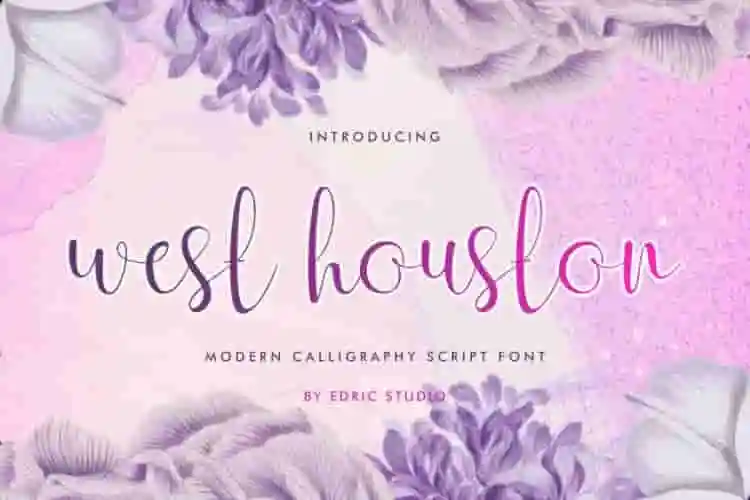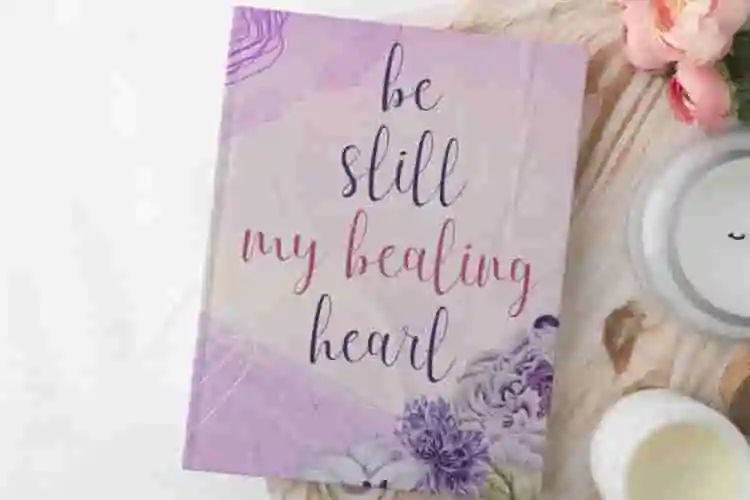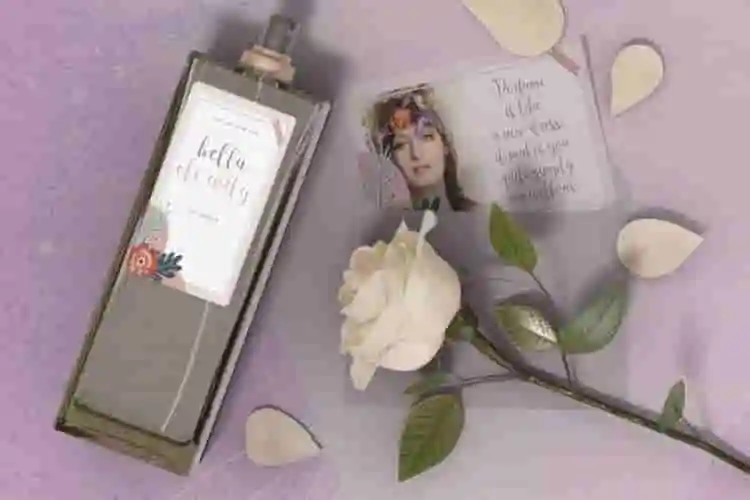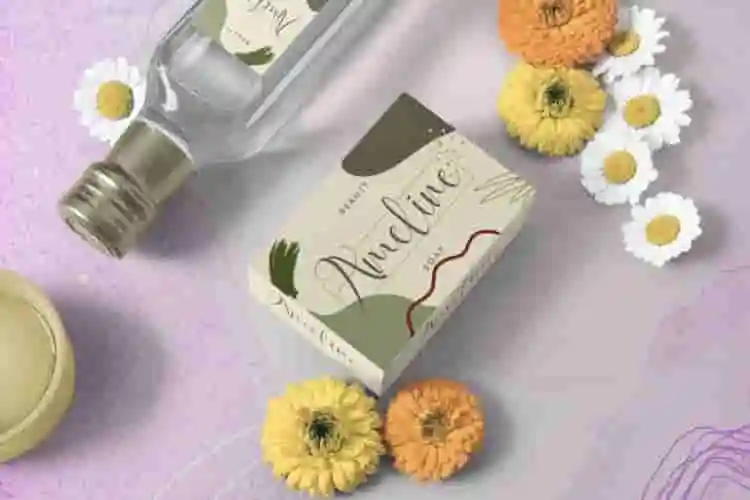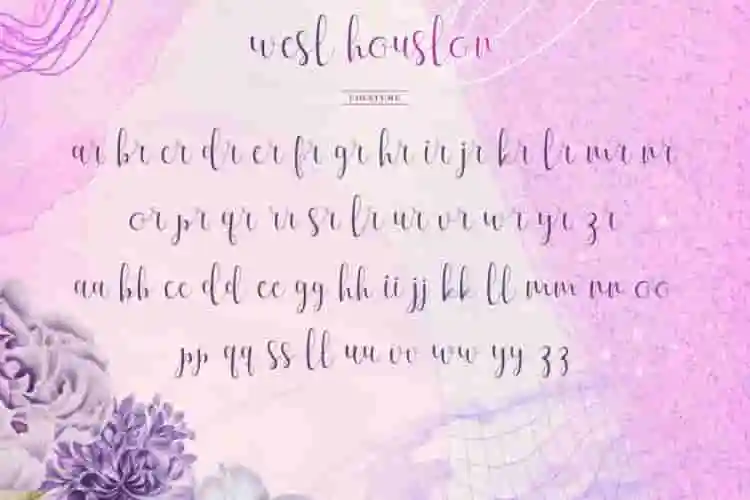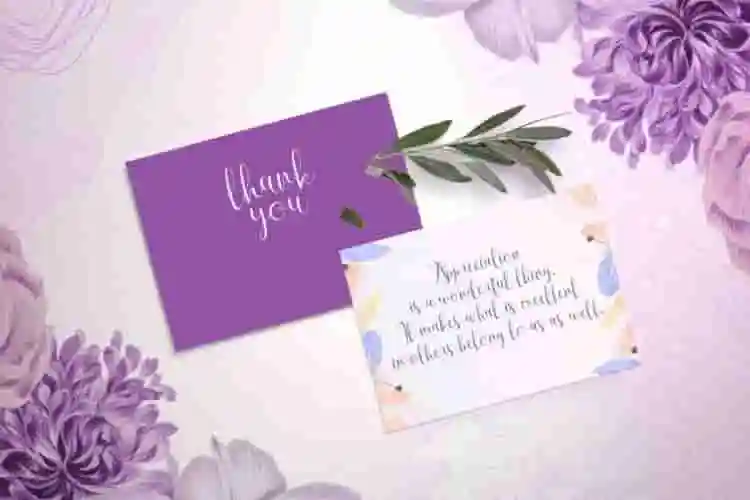
West Houston Calligraphy Font
West Houston Font is a modern calligraphy script font that feels charming and delicate. This font was designed to enhance the beauty of your projects. Fall for its elegant style and use it to create beautiful stationery, eye-catching products packaging, gorgeous wedding invitations, signage, title and much more!
West Houston Font is PUA encoded which means you can access all of the glyph with ease! This font stands perfectly on its own for logos, quotes, or works great paired with an all caps serif or sans serif, as pictured above. Comes with a large range of ligatures to give it a feminine calligraphy script feel.
Add a touch of timeless elegance to your designs with West Houston Calligraphy Font — a graceful, flowing script font inspired by modern calligraphy and handwritten charm. Whether you’re working on a wedding invitation, branding design, logo, greeting card, or social media content, West Houston brings sophistication and warmth to every letter.
Looking for a font that speaks elegance, emotion, and timeless beauty? Meet West Houston, a romantic calligraphy font crafted to capture hearts and elevate your designs with a graceful, handwritten touch.
Inspired by modern calligraphy and classic penmanship, West Houston flows effortlessly with delicate curves and a natural rhythm that makes it perfect for wedding invitations, love letters, logos, beauty branding, and more.
• Uppercase and Lowercase
• Numbering and punctuation
• Ligatures
• Multilingual support
• Elegant Script Font
• Perfect for Branding